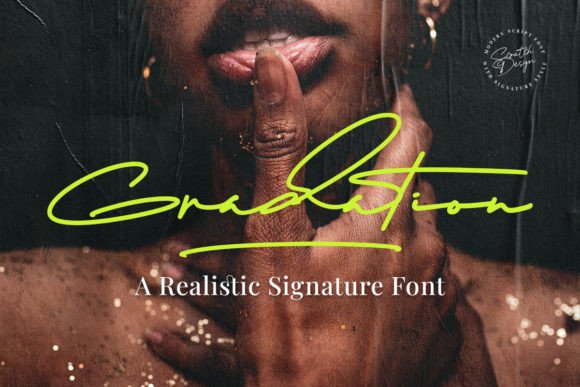
Gradation: A Versatile Script for Modern Design
When I first laid eyes on Gradation, it struck me as a font that effortlessly blends elegance with a touch of playfulness. The flowing, connected letters give off a sense of movement and fluidity, making it a perfect choice for projects that need a touch of sophistication without feeling too formal.
A Font with Personality
Gradation has a distinct visual personality. It's not just a pretty face; it brings a certain charm and character to any design. The letters feel like they're dancing across the page, creating a lively yet refined mood. This makes it an excellent candidate for brands and designs that want to convey a sense of creativity and modernity.
Ideal for Branding and Identity
In the realm of logo design and brand identity, Gradation can be a powerful tool. Its unique style can help a brand stand out and create a memorable impression. Whether it's a boutique, a creative agency, or a lifestyle brand, this typeface can add a touch of class and individuality. Just make sure to test it in black and white to ensure its versatility and legibility.
Perfect for Packaging and Product Labels
When it comes to packaging design and product labels, Gradation can elevate the overall aesthetic. Imagine a high-end cosmetic line or a gourmet food product—this font can add a premium feel, making the product look more luxurious and appealing. However, it's important to check how it performs at smaller sizes, as some script fonts can lose their readability when scaled down.
Eye-Catching in Editorial and Print Design
For editorial design, Gradation can be a fantastic choice for headlines, quotes, and decorative accents. It adds a dynamic element to magazine layouts and book covers, making them more engaging and visually interesting. When using it in print, always review the spacing and kerning to ensure that the text remains clear and readable.
Engaging in Web and Digital Design
In web design, Gradation can be used effectively for website headers, blog graphics, and social media posts. It’s particularly well-suited for digital ads and social media graphics where you need to grab attention quickly. However, use it sparingly for body text, as script fonts can be challenging to read in longer passages. Pair it with a clean sans serif or a classic serif font to maintain a balanced hierarchy and enhance readability.
Practical Designer Notes
- Test in Black and White: Always start by testing the font in black and white to see how it holds up without color distractions.
- Check Small-Size Readability: Ensure that the font is still legible at smaller sizes, especially for packaging and product labels.
- Try on Real Mockups: Use real mockups to see how the font looks in context, whether it’s a poster, a flyer, or a product label.
- Compare Uppercase and Lowercase: See how the uppercase and lowercase letters interact and adjust if necessary for better flow and balance.
- Review Spacing: Pay close attention to letter and word spacing to ensure optimal readability and visual appeal.
- Font Pairing: Experiment with pairing Gradation with other fonts. It works well with both serif and sans serif fonts, adding a nice contrast and balance.
Where to Use Gradation Carefully
While Gradation is versatile, it should be used carefully in certain contexts. It’s best suited for large headlines, short phrases, brand marks, and decorative accents. Avoid using it for long blocks of text, as it can become overwhelming and difficult to read. For premium packaging, social posts, and supporting text, it can add a touch of elegance, but always balance it with more readable fonts.
Final Thoughts
Gradation is a premium font that offers a lot of creative possibilities. Its unique style and versatility make it a valuable addition to any designer’s toolkit. Whether you’re working on a brand identity, packaging design, or digital product, this typeface can help you create something truly special. Just remember to test and refine to ensure it meets your project’s needs and maintains the desired level of professionalism and engagement.